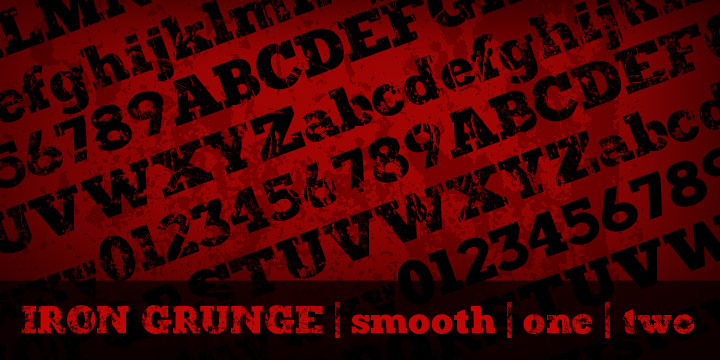
• Iron Grunge™
Based on the past with a modern sensibility, Iron Grunge is a bold, strong, slab, serif font. If you like to use grunge fonts in your designs but you want to avoid the problem where repeated letters have the exact same grunge application, then Iron Grunge is for you.
The real heart of the Iron Grunge is styles One and Two. You can easily mix these two fonts in your design for varied grunge look. This font family also includes a smooth version for those times when you want no grunge or want to apply your own grunge.
Iron Grunge One
Iron Grunge Two
Iron Grunge Smooth